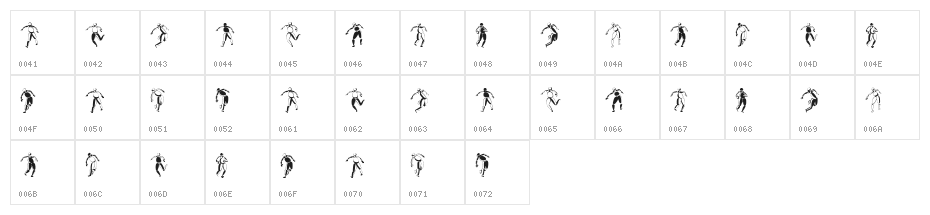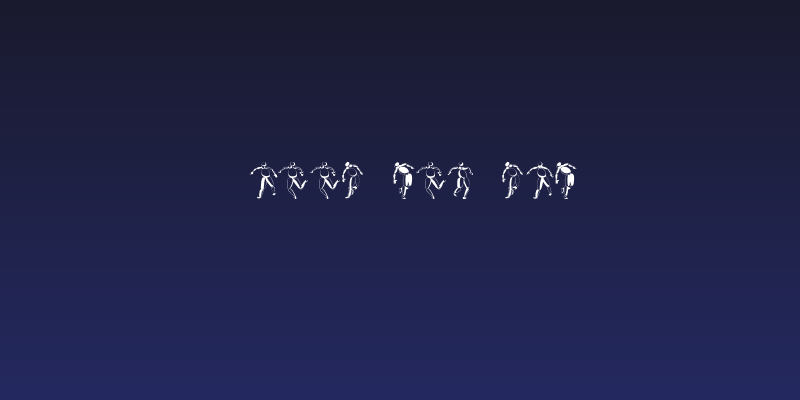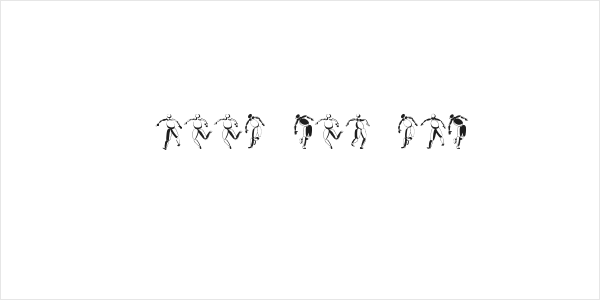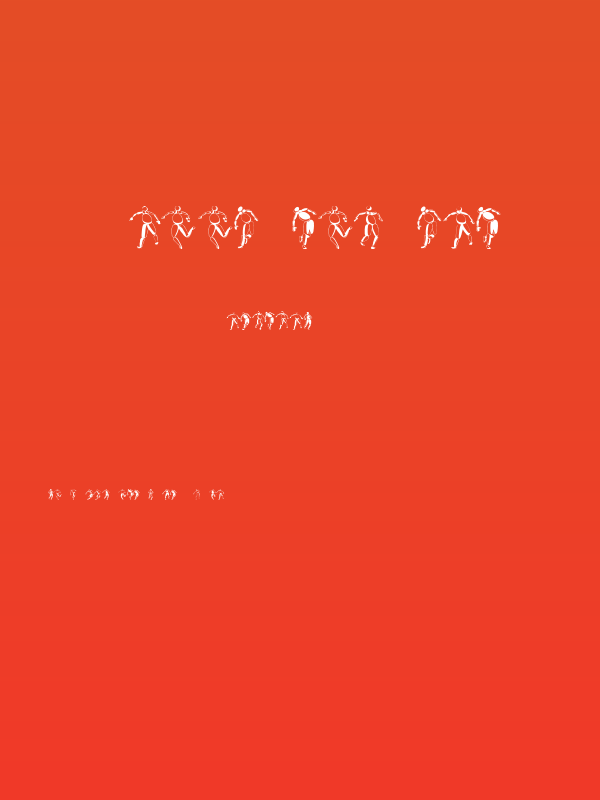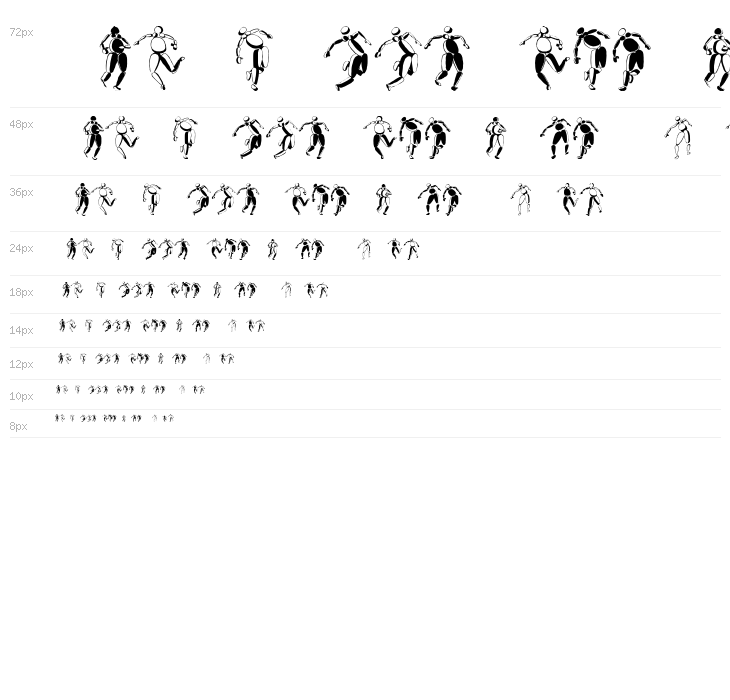
Speel Regular Font
Speel Regular Description
A highly decorative and playful font where each character is represented by a stylized, abstract figure in motion, resembling dancing or running human forms. The design is whimsical, with bold and thin contrasts, and each glyph is unique in its pose and structure.
| Overall Style | Decorative, Playful, Abstract |
| Use Case | Logos, Posters, Headlines, Artistic projects |
| Proposed Projects | Children’s books, event posters, creative branding, art installations, playful packaging. |